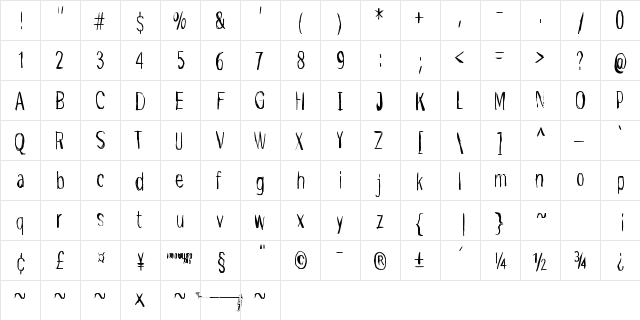
Edge Regular Font Preview
Edge Regular
Edge Regular Font Details
| Foundry | junkohanhero |
| Designer | junkohanhero |
Design Context for Edge Typeface
Edge offers clean, dependable letterforms without strong stylistic allegiance, making it a practical choice for designers who need flexibility.
Pro Tip: Use Edge in both headline and body roles to test its range before committing to a single application.